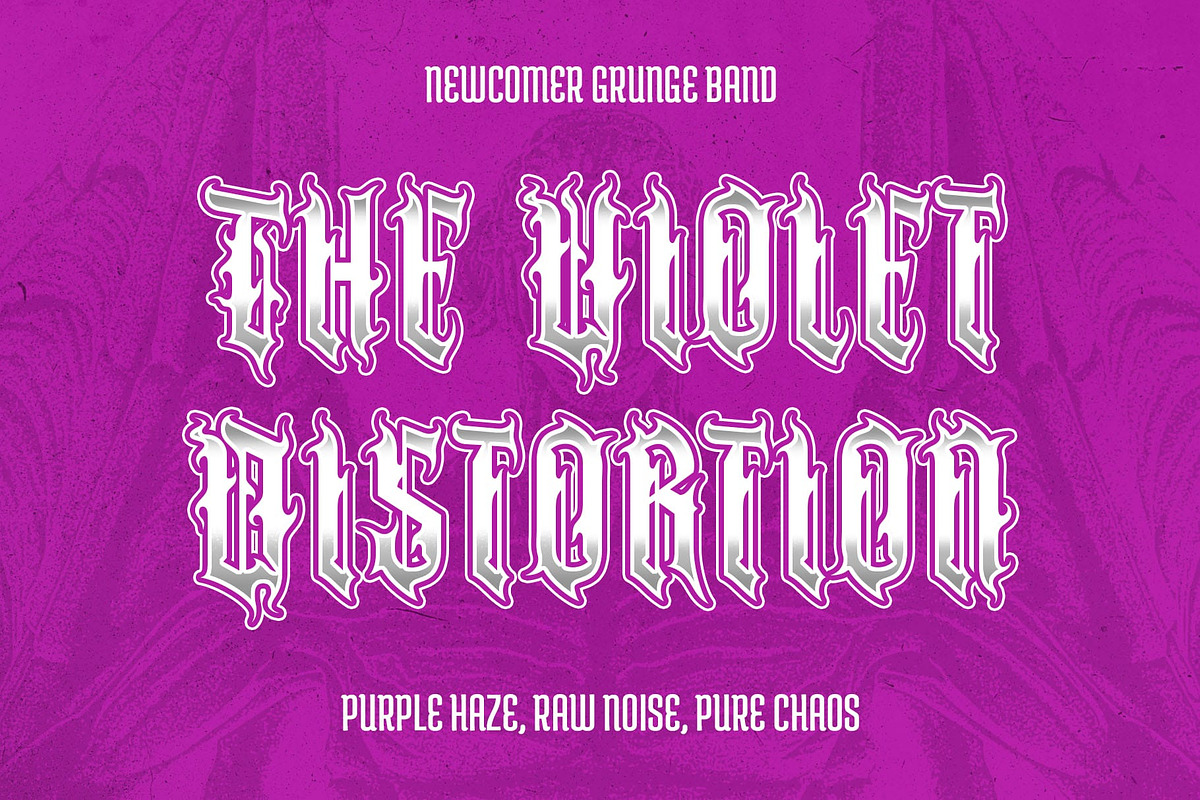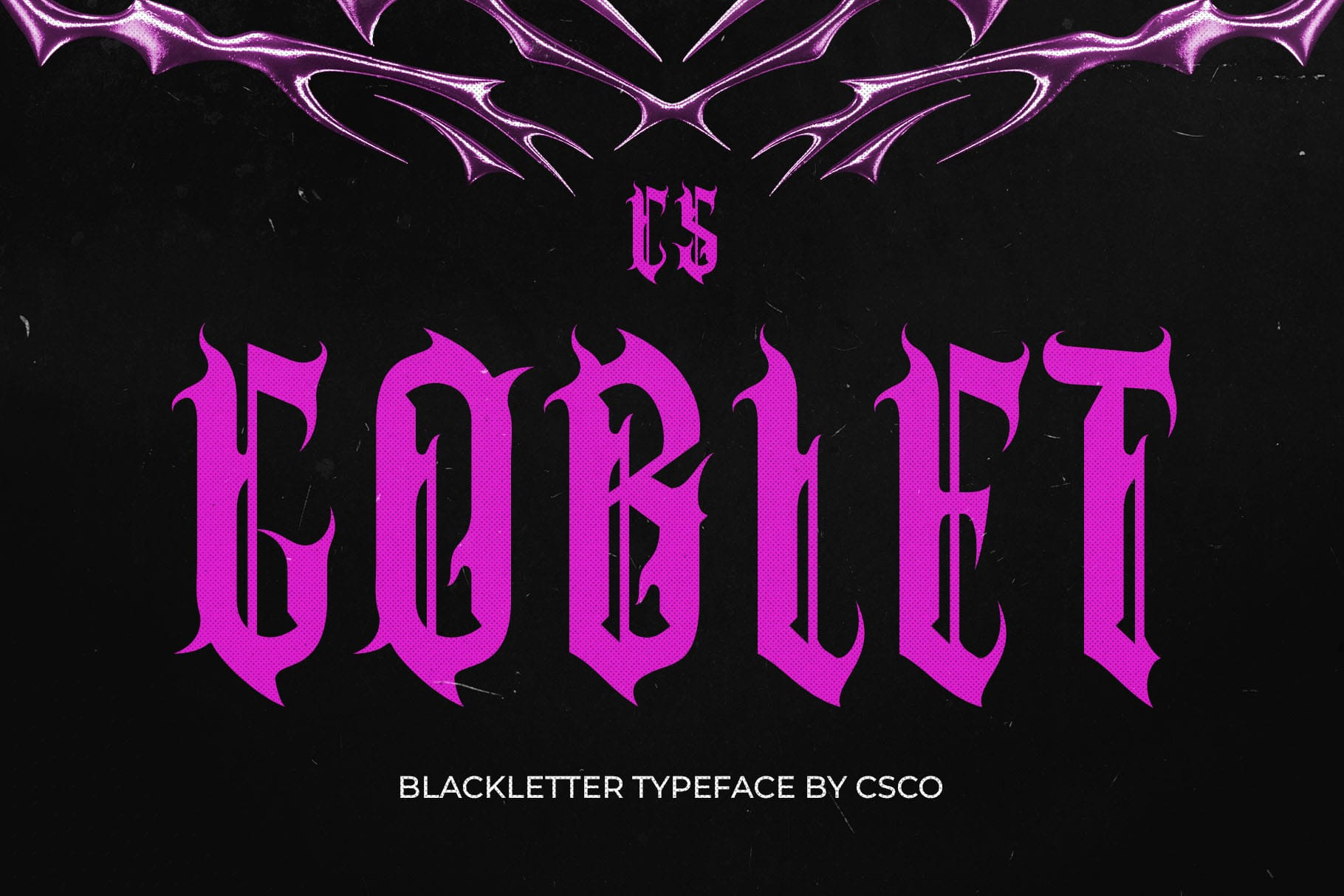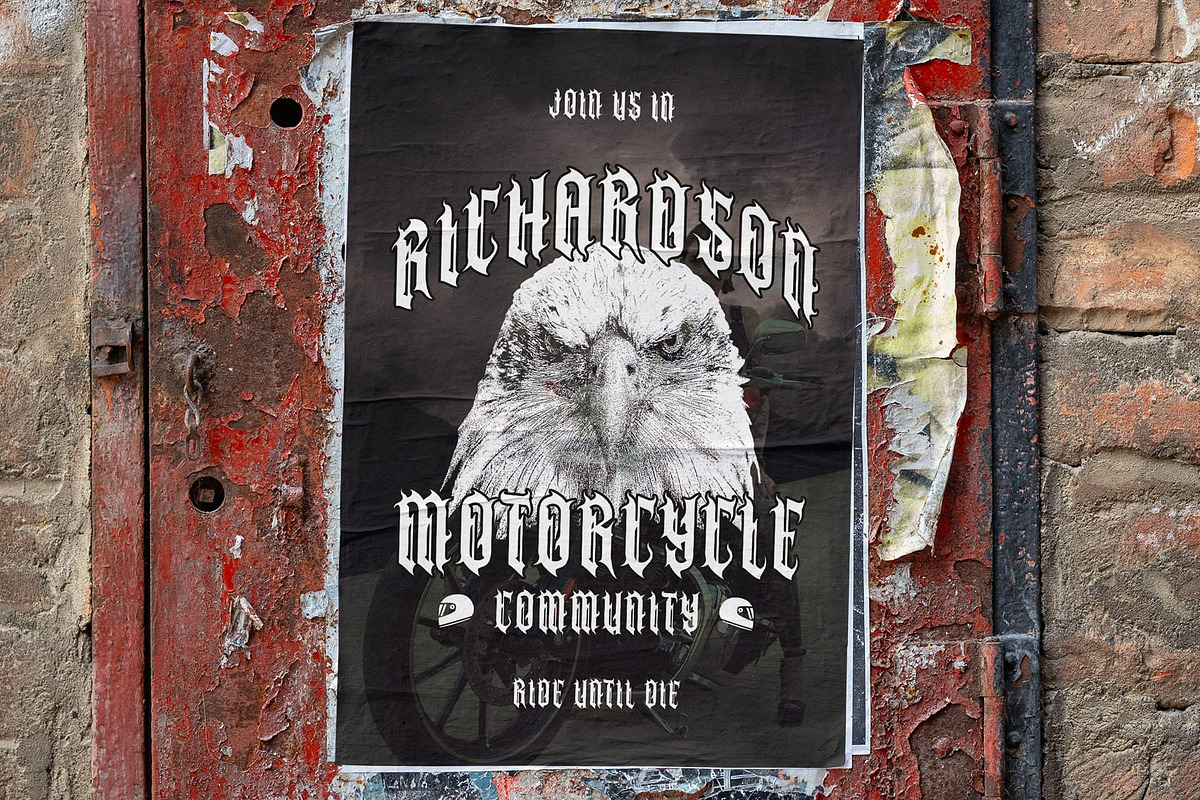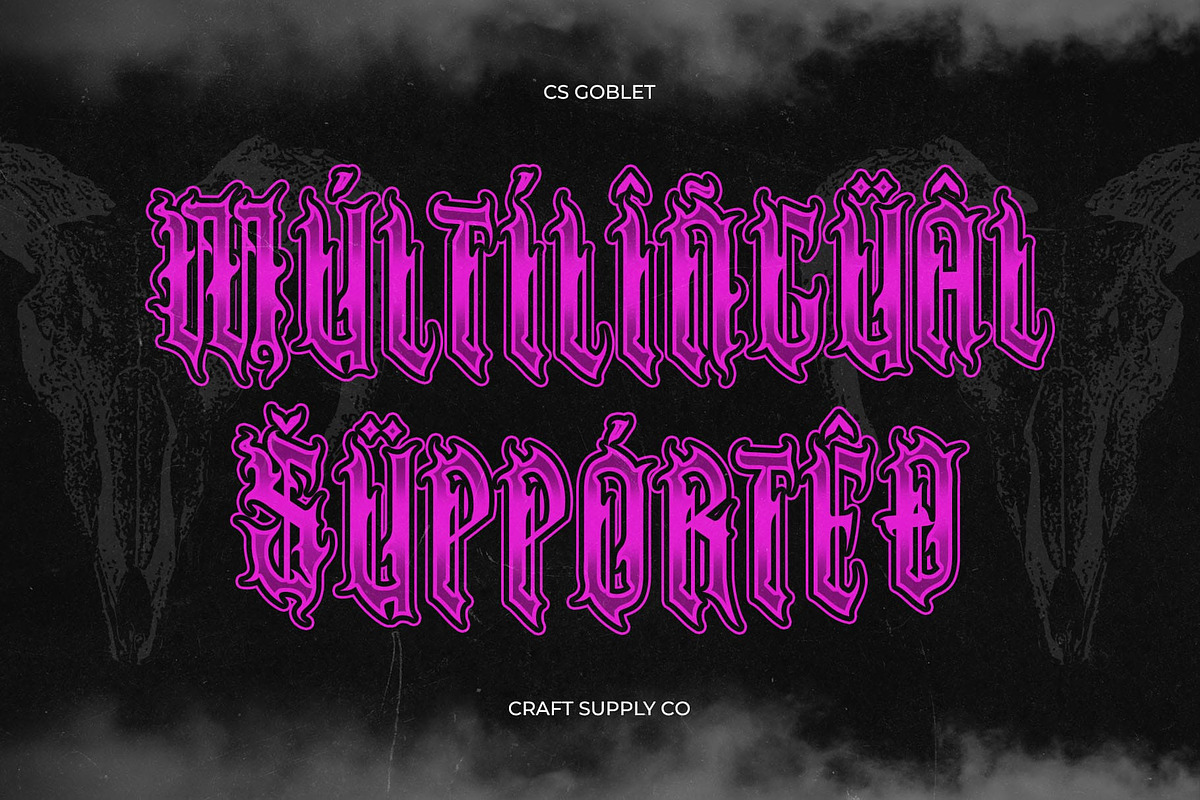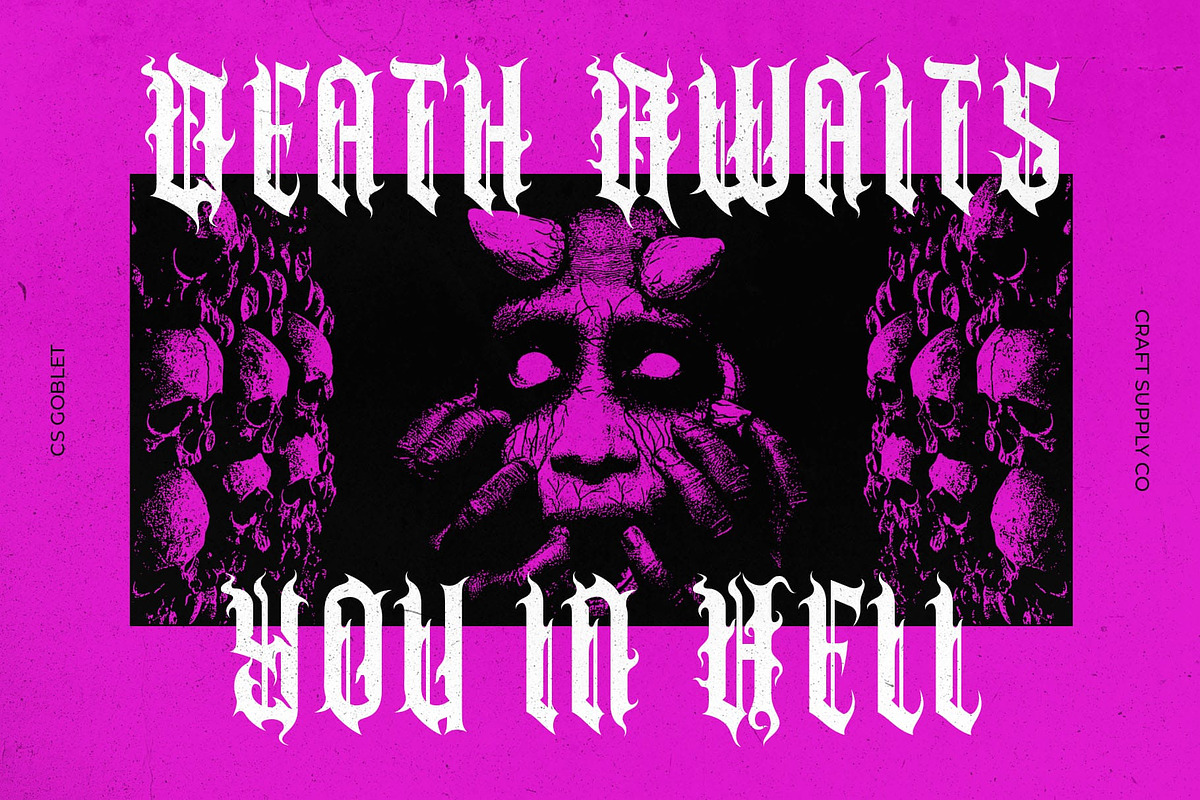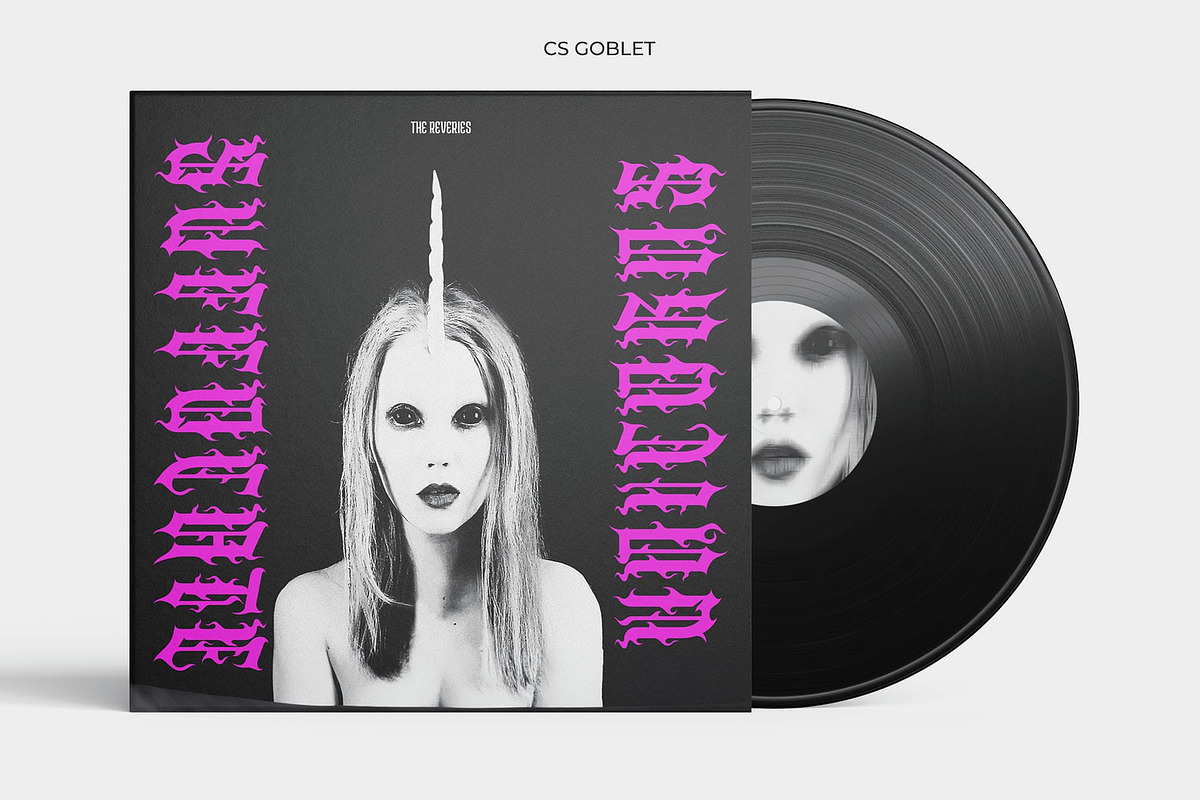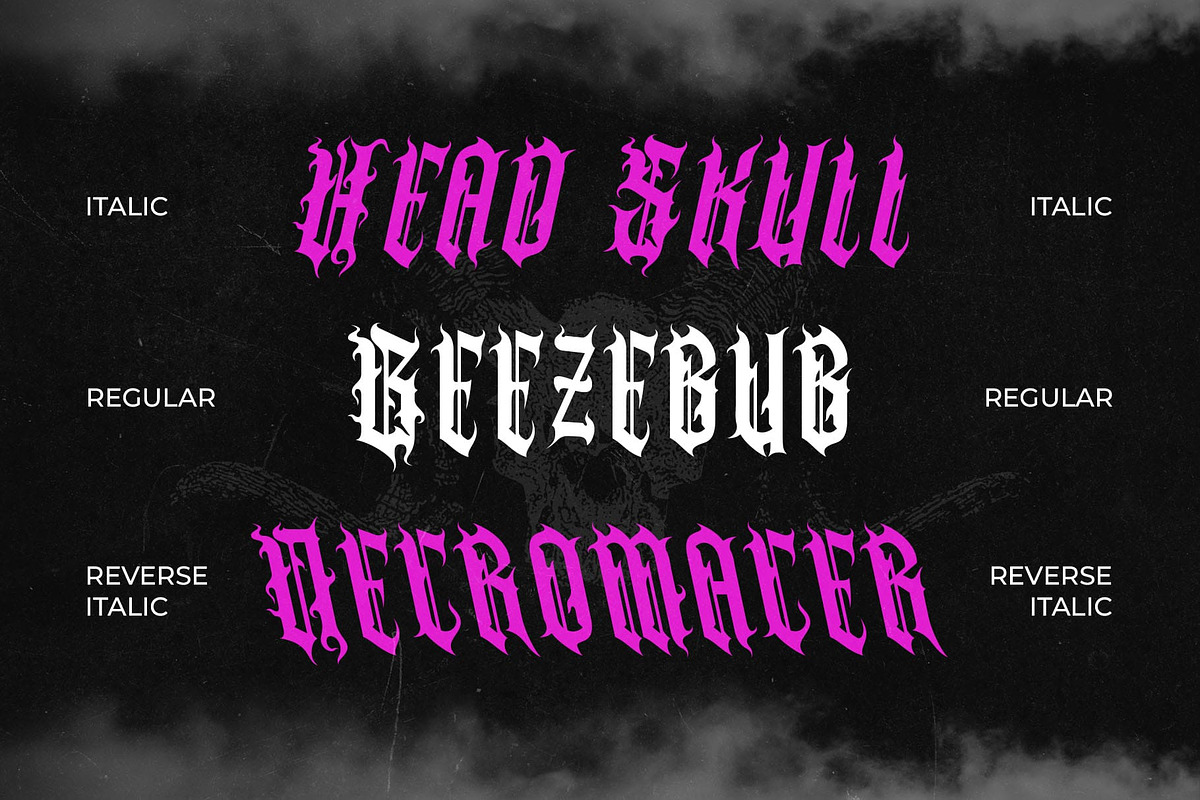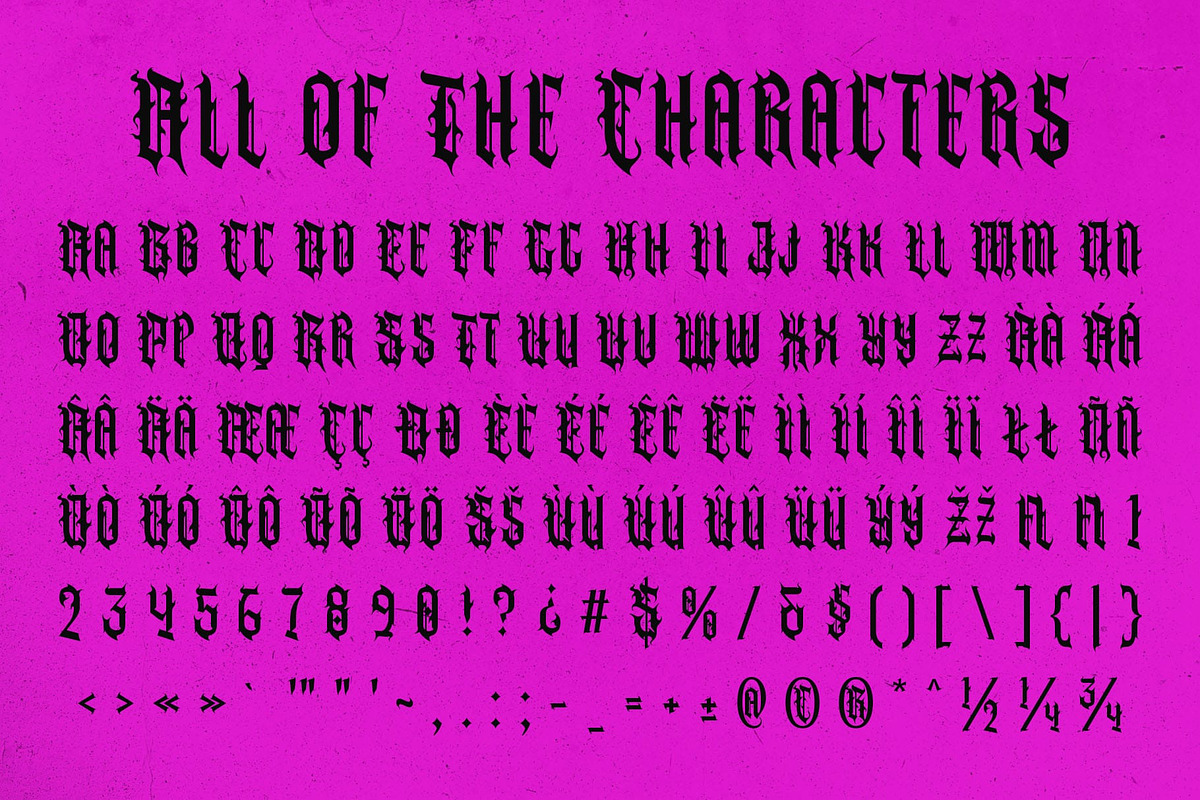
CS Goblet – Blackletter Font
CS Goblet – A Bold and Regal Blackletter Font
Intricate Strokes with Gothic Elegance CS Goblet is a Blackletter display font that embodies the rich history and intricate craftsmanship of medieval typography. With its angular strokes, sharp serifs, and dramatic contrast, this font exudes an authoritative, historical, and ornate aesthetic. The refined letterforms showcase strong verticality and decorative flourishes, making it an exceptional choice for designs that demand a bold and commanding presence.
A Perfect Blend of Tradition and Mystery Deeply rooted in medieval script traditions, CS Goblet captures the essence of historical manuscripts, gothic calligraphy, and heraldic lettering. The carefully crafted details provide a sense of elegance and mystery, making it ideal for vintage branding, themed events, and classical editorial layouts that aim to evoke a sense of grandeur and old-world charm.
Ideal for Vintage and Thematic Design Projects CS Goblet is perfectly suited for metal band logos, book covers, gaming titles, craft beer labels, and historical-themed designs. Its dark, moody, and sophisticated style makes it an excellent choice for projects that demand a heritage-inspired, mystical, or gothic appeal.
Versatile Yet Distinctively Timeless While maintaining the classic essence of traditional Blackletter fonts, CS Goblet offers modern usability, making it adaptable for branding, packaging, posters, and decorative typography. Whether for fantasy-inspired artwork, medieval aesthetics, or bold statement pieces, this font delivers impact, elegance, and historical authenticity in every letter.
- CS Goblet Regular
- CS Goblet Italic
- CS Goblet Reverse Italic